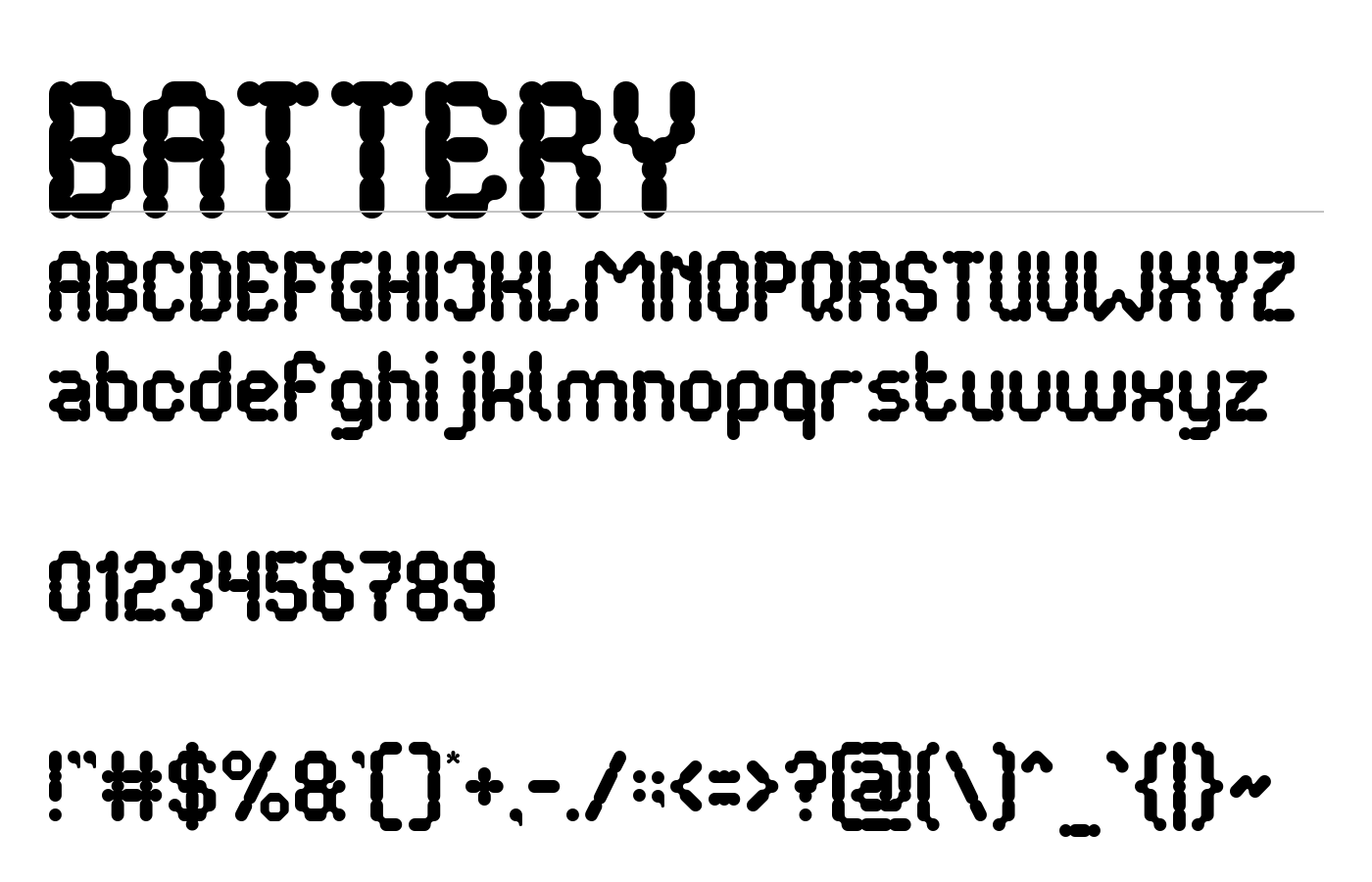
Battery is a bold, geometric sans serif font with a unique, playful structure resembling connected dots or rounded blocks. Its consistent stroke weight and compact letterforms give it a distinct modern and tech-inspired vibe, making it ideal for eye-catching logos, digital interfaces, and futuristic branding that aim to stand out with a creative, energetic personality.
BATTERY Font
About BATTERY Font
| Font family | BATTERY Font |